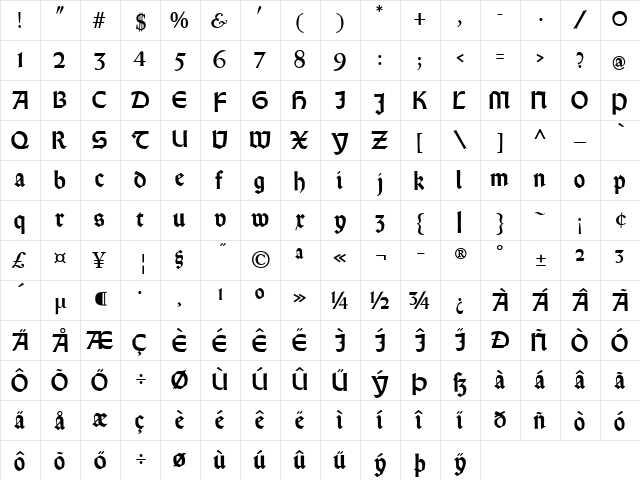
Rundgotisch Rauh Regular
| Foundry | Peter Wiegel |
| Designer | Peter Wiegel |
Design Context for Rundgotisch Rauh Typeface
Rundgotisch Rauh is a composed and adaptable typeface that performs quietly and consistently across a wide range of design contexts.